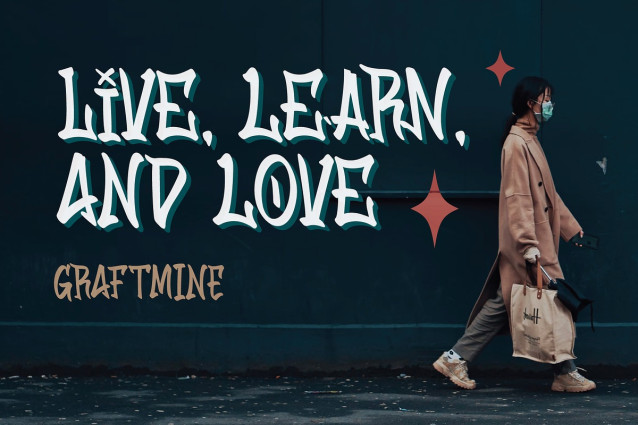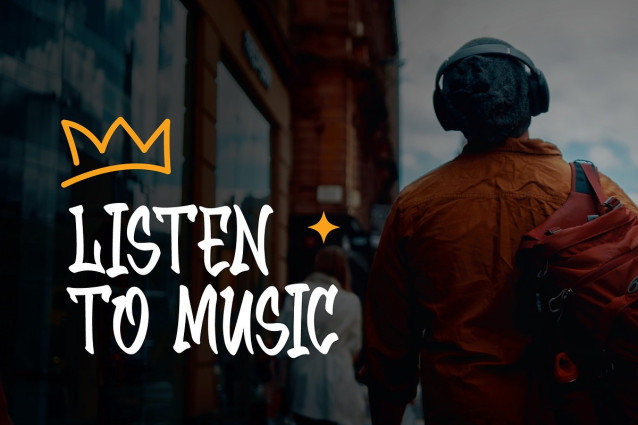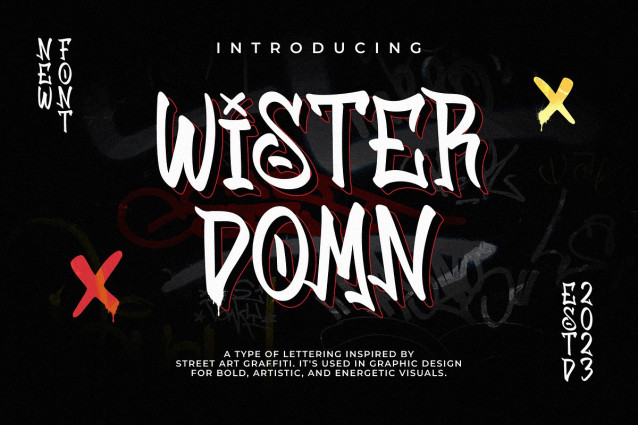
Wister Domn Font
Wister Domn Font – This all-caps font is the perfect companion for a wide range of applications, from magazine layouts and promotional content to eye-catching posters, merchandise designs, and so much more.
Captivate your audience with the unmistakable charm of urban graffiti. “Wister Domn” is the embodiment of the street art culture, allowing you to add that authentic, rebellious feel to your designs. Make your message stand out and leave a lasting impression.
No boundaries here! “Wister Domn” speaks the language of creativity fluently. With full multilingual support, it ensures your message is understood by a global audience. So, whether you’re targeting a local community or a worldwide market, this font has you covered.